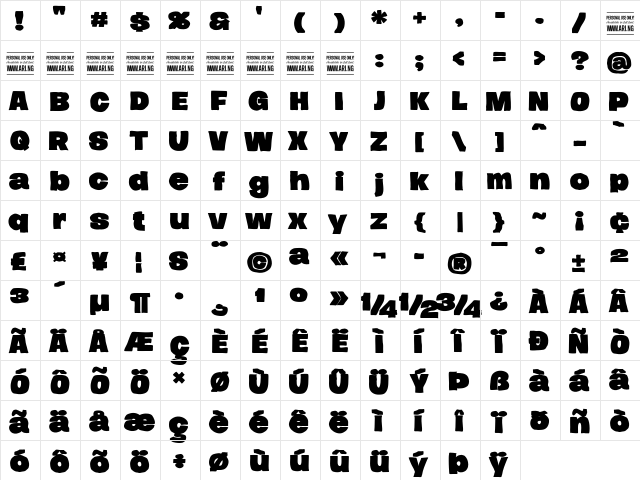
Hierograf Solid PERSONAL USE Regular
| Foundry | Mans Greback |
| Designer | Mans Greback |
Design Context for Hierograf Solid PERSONAL USE Typeface
Hierograf Solid PERSONAL USE takes a measured approach to typography — its balanced proportions and neutral character make it a reliable workhorse for both digital and print work.